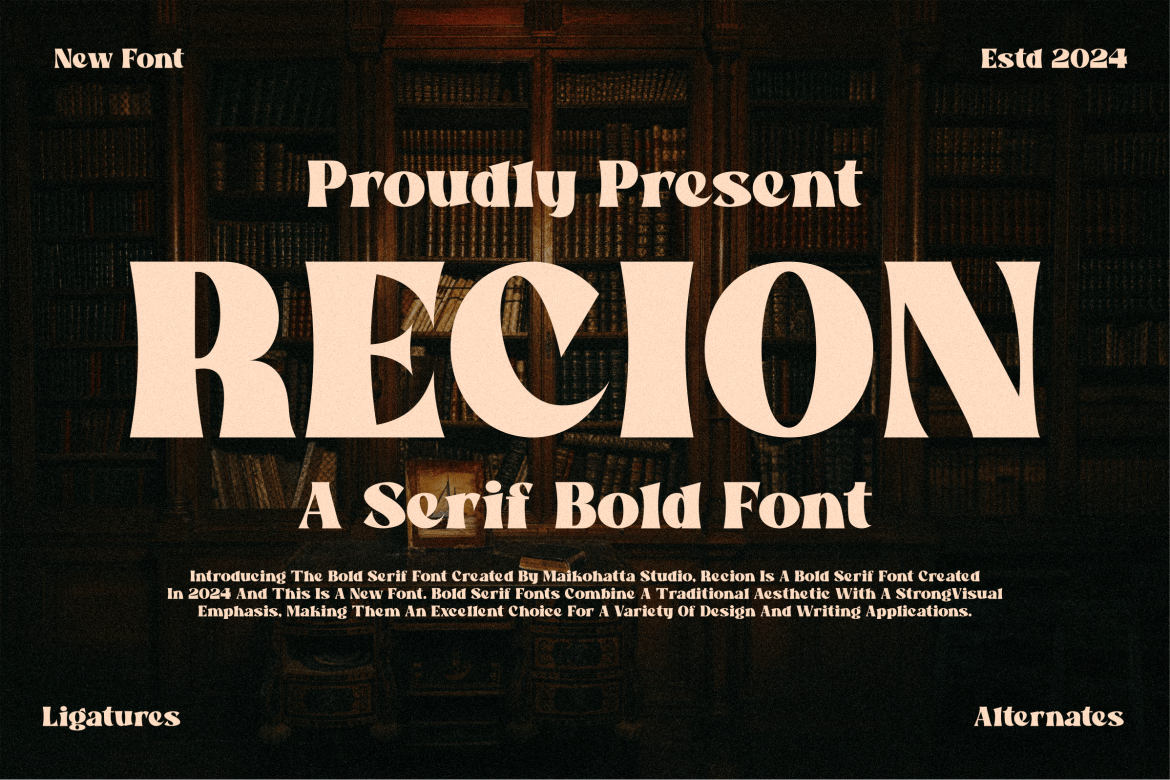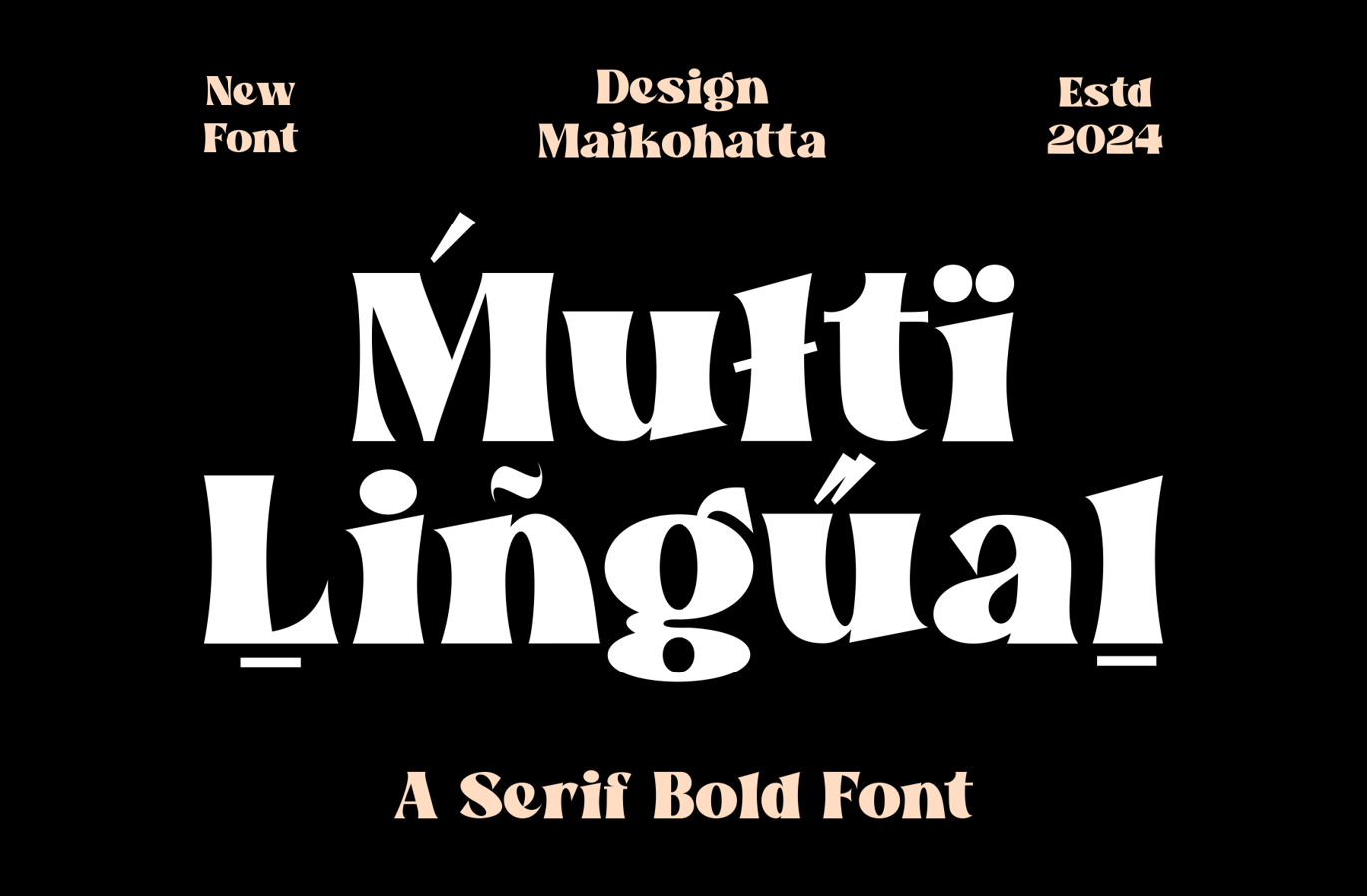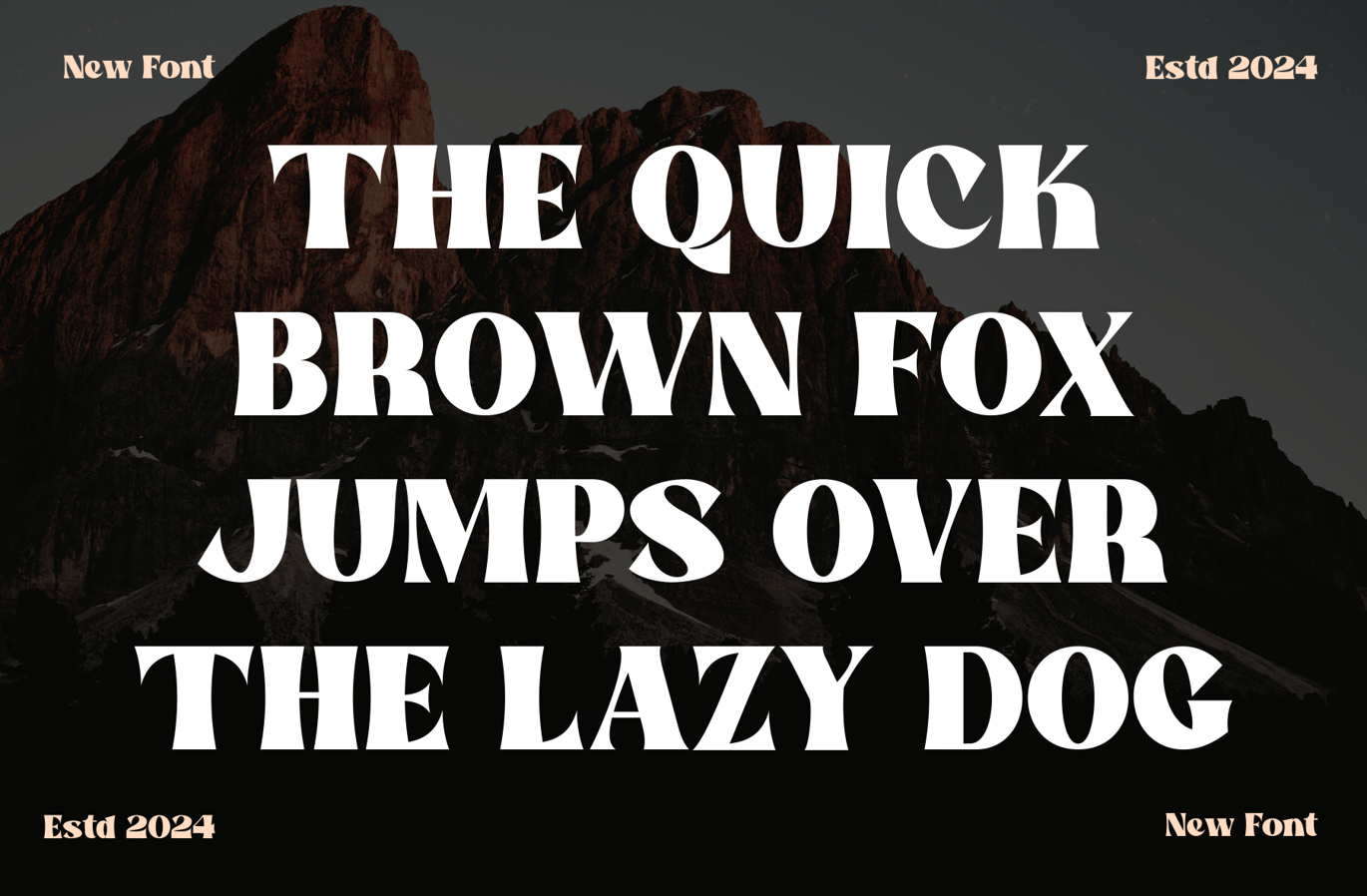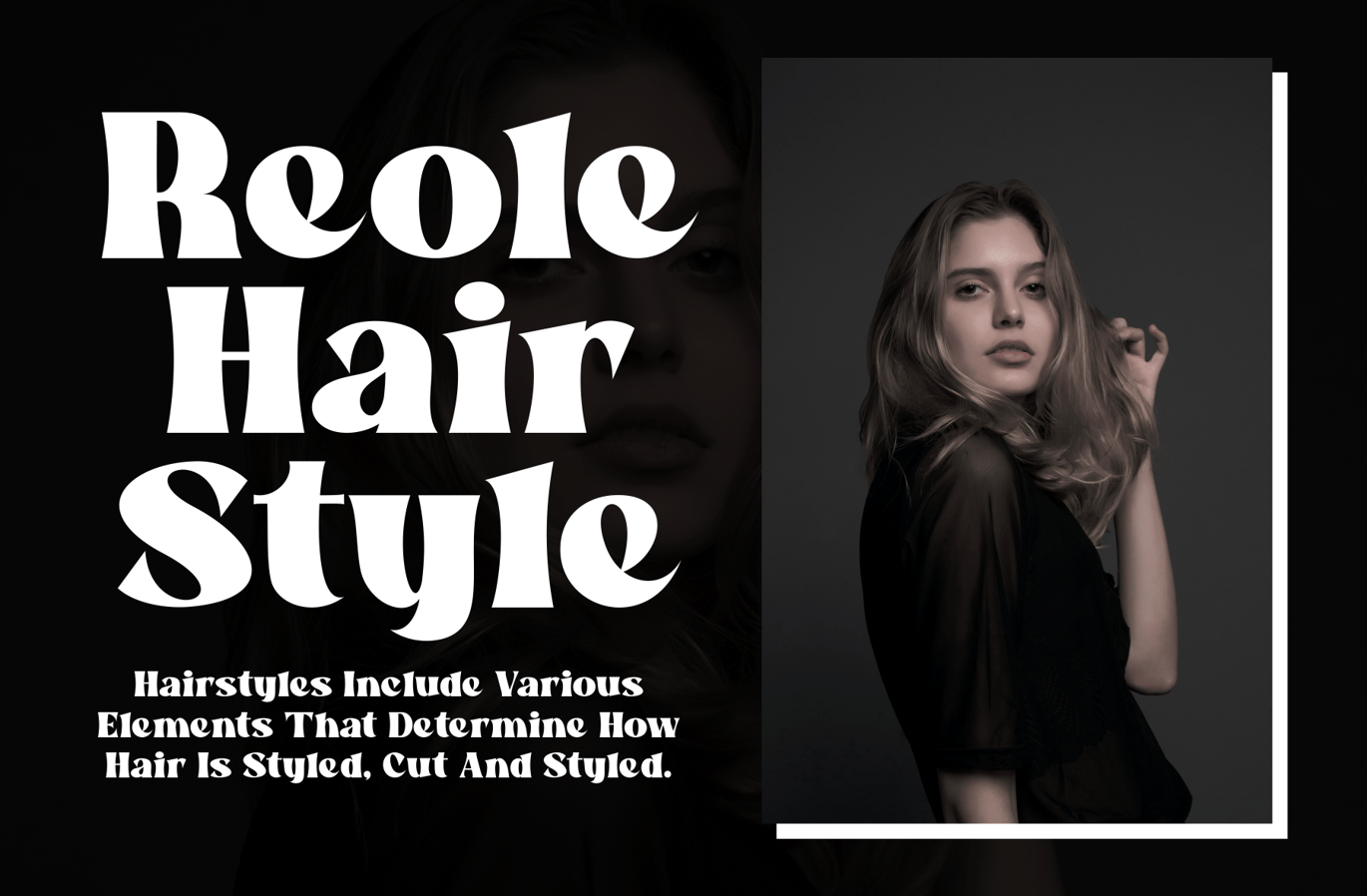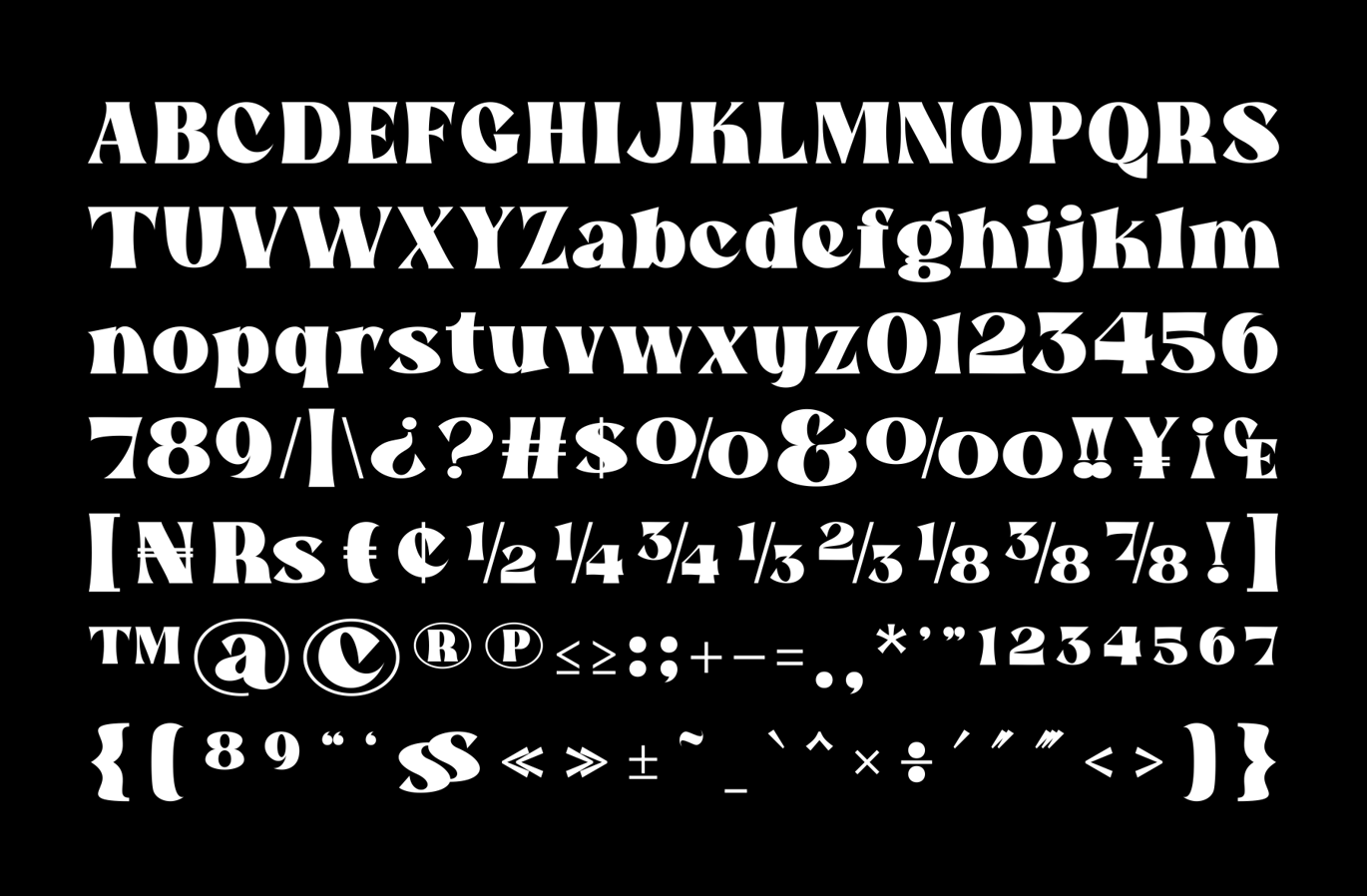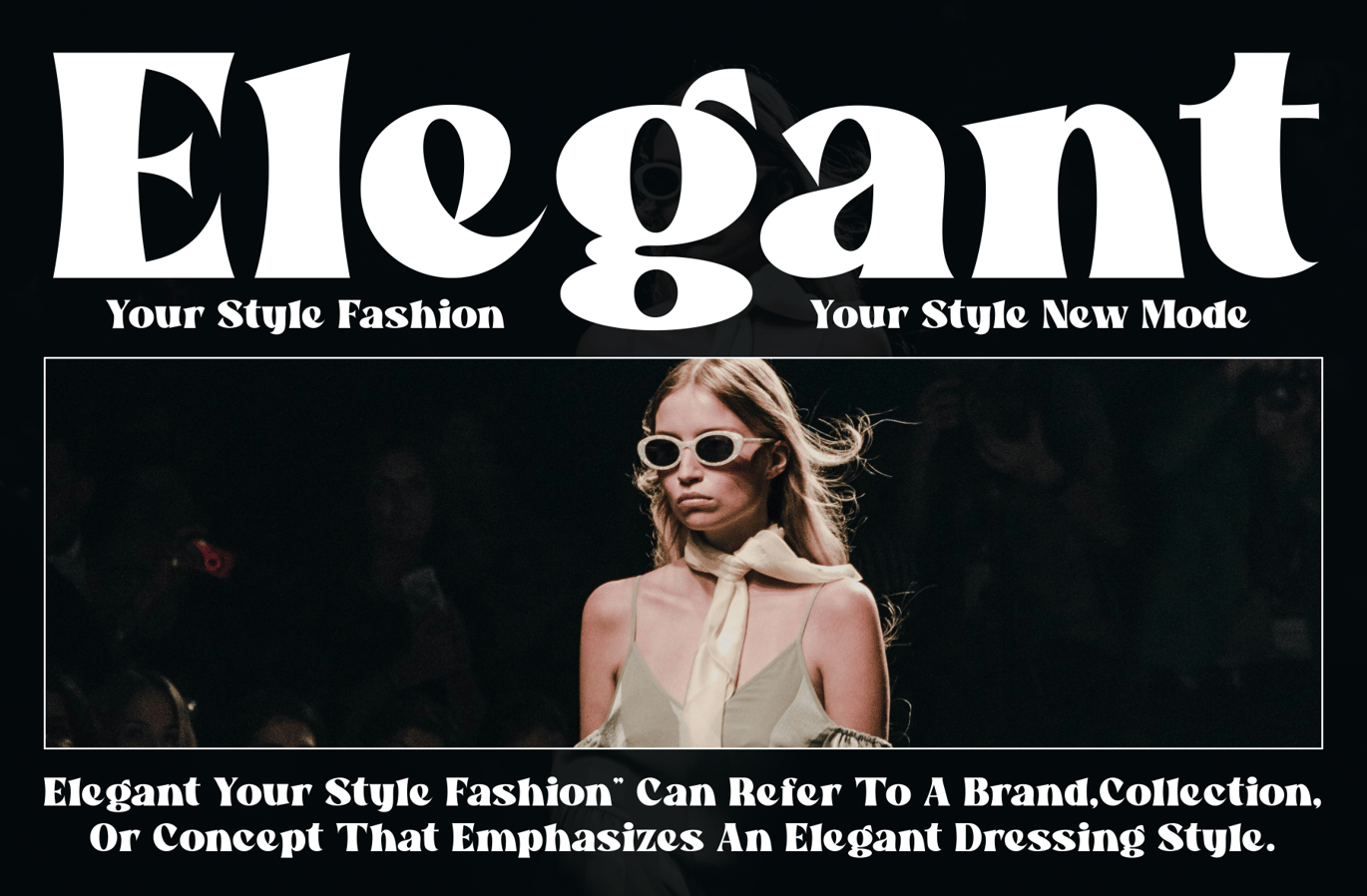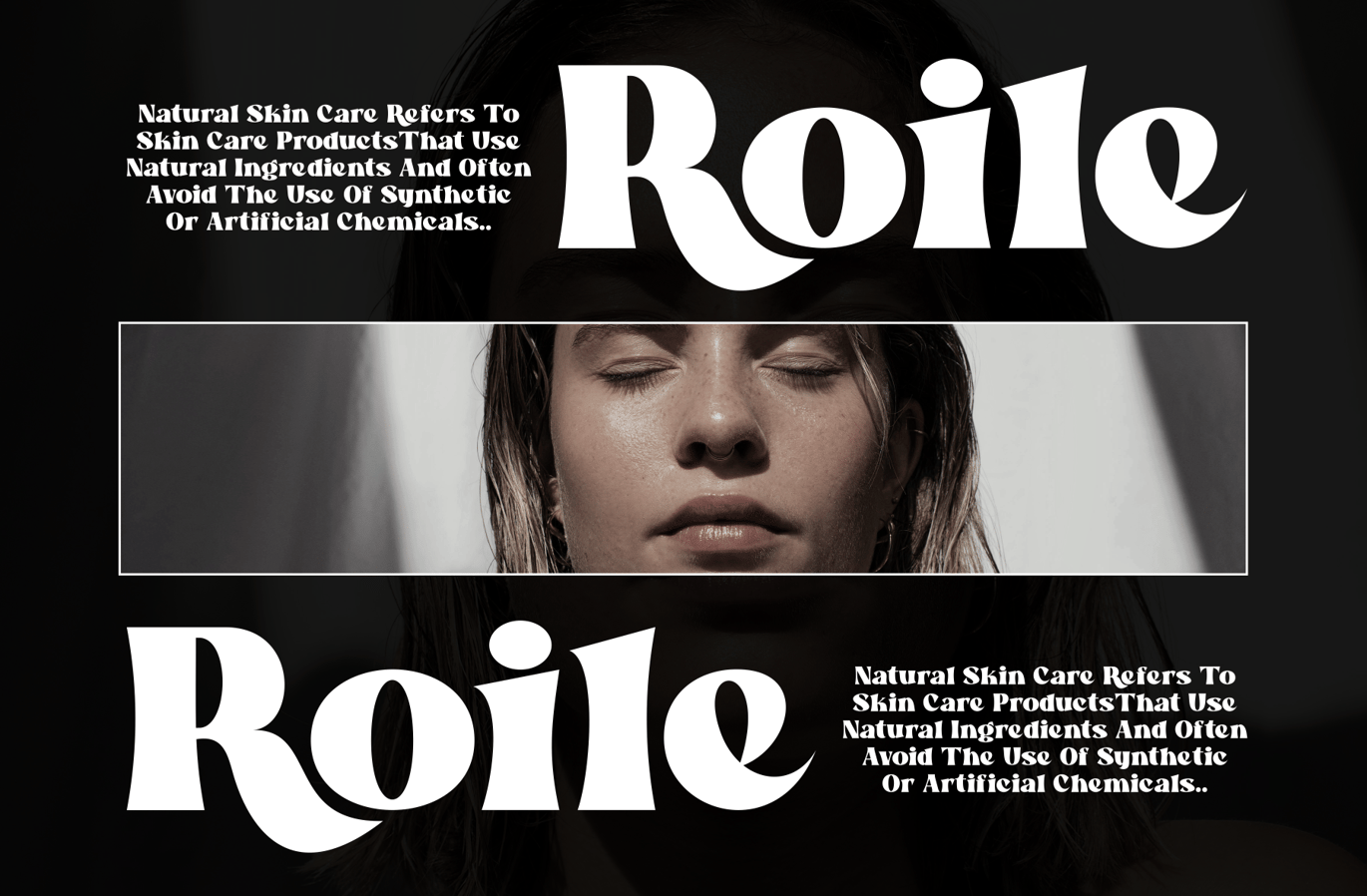
Recion – Serif Bold Font
Introducing our new product Recion – Serif Bold Font
This font features a balanced proportion of stroke thickness and fineness, creating attractive and easy-to-read visuals. This modern serif style is often characterized by a bold distinction between thick and thin lines, providing a touch that is understated but still stands out.